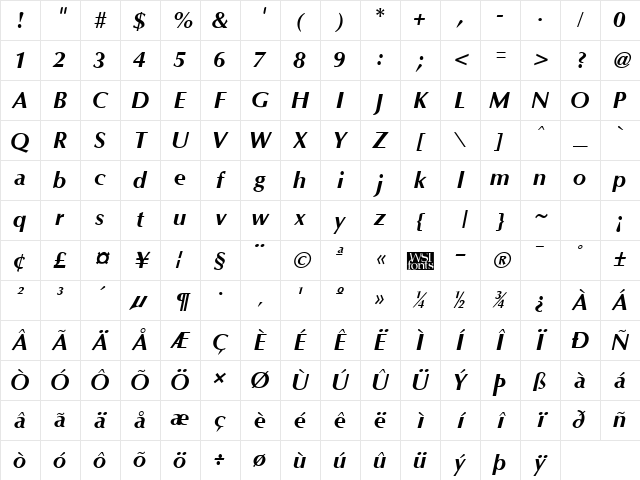
Optane Bold Italic
Design Context for Optane
Optane is a composed and adaptable typeface that performs quietly and consistently across a wide range of design contexts. The slanted form adds forward momentum and visual energy. Its bold stroke weight gives it real presence on the page.
Pro Tip: Use Optane for emphasis, pull quotes, and subheadings where its slanted energy can add rhythm to the layout.